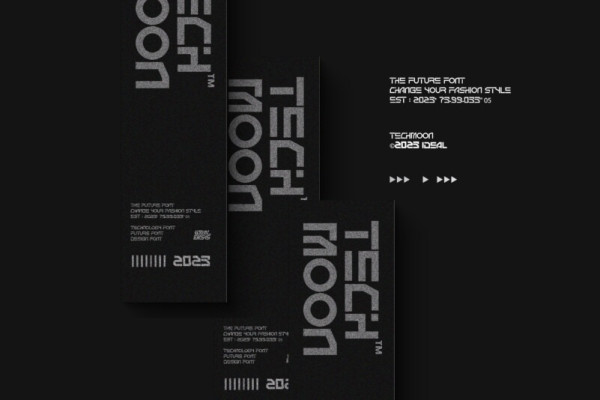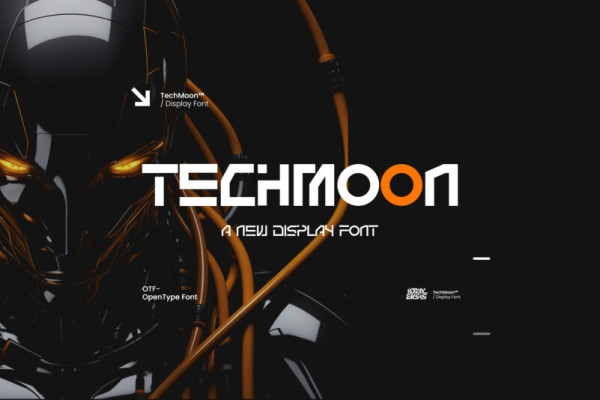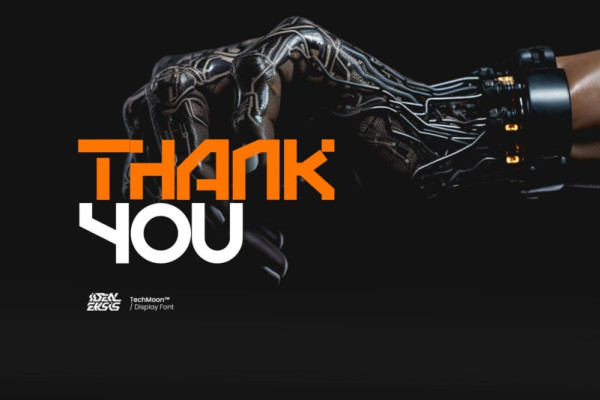
Techmoon Futuristic Font
Techmoon Futuristic Font,  It has a distinctive futuristic design. Use it to create time-traveling movie posters for futuristic or extraterrestrial productions. Fantastic for creating unique cards and artwork for science fiction fans.This font was created to be used for universal events like game competitions, wall advertisements, and poster designs. Your design can look better with a simple combination. Purchase it right away to enjoy using it ahead of the competition.